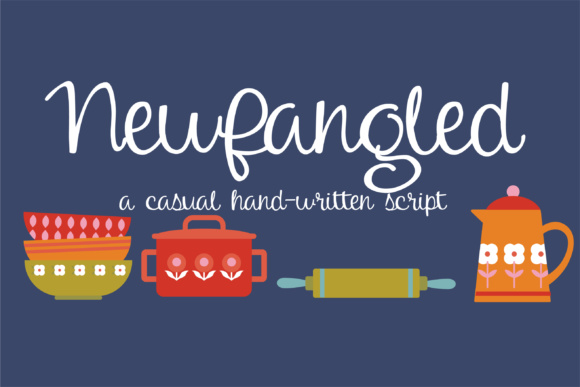
Introducing Newfangled Font - The Whimsical Script That Will Transform Your Designs
Journey into the realm of enchantment with Newfangled Font, a captivating script that will weave magic into your creative projects. This hand-crafted masterpiece, brought to life by Illustration Ink, embodies the essence of playfulness and charm. Its full letters and endearing lowercase 'g' will add a touch of whimsy to any design, making it the perfect choice for those seeking a unique and expressive font.
Step into a world of endless possibilities as you explore the versatility of Newfangled Font. With its graceful lines and enchanting curves, it effortlessly adapts to a myriad of design styles, from whimsical invitations to enchanting logos. Its ability to blend seamlessly with both modern and vintage aesthetics makes it a timeless treasure that will elevate your creations to new heights.
Unleash your creativity and let Newfangled Font guide you on an artistic adventure. Its charming personality will captivate your audience, leaving them spellbound by the sheer beauty of your designs. Whether you're crafting heartfelt letters, designing eye-catching posters, or creating personalized gifts, Newfangled Font will add a touch of magic that will leave a lasting impression.